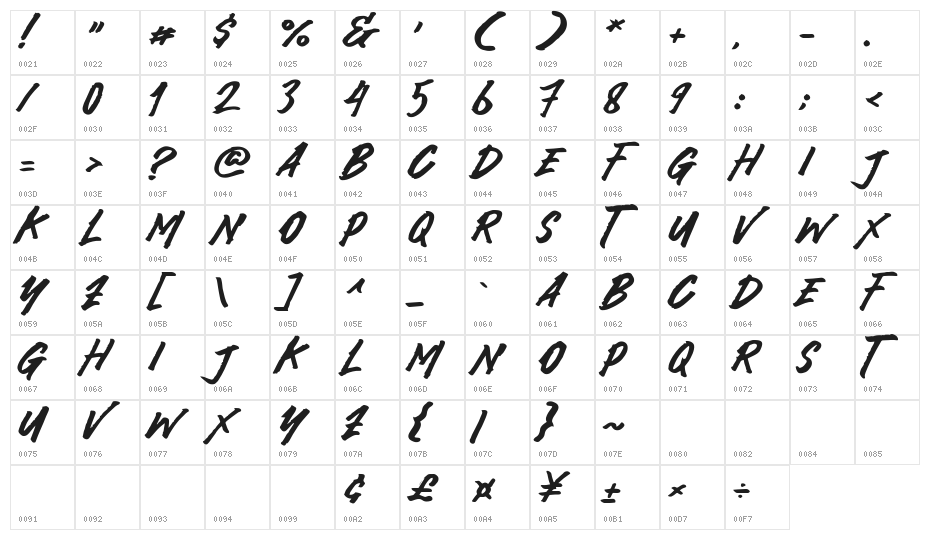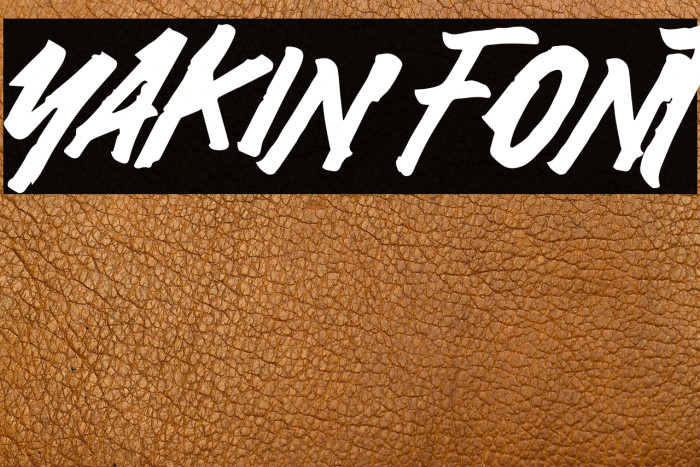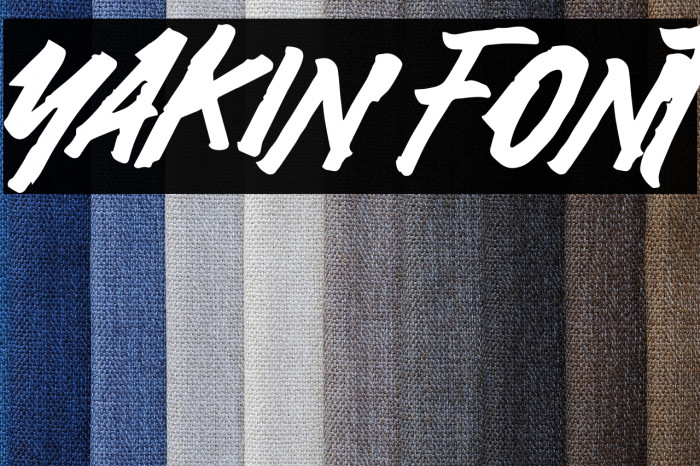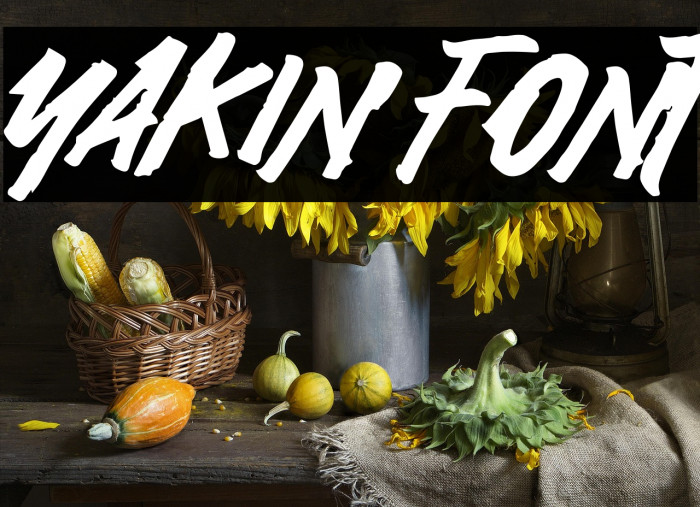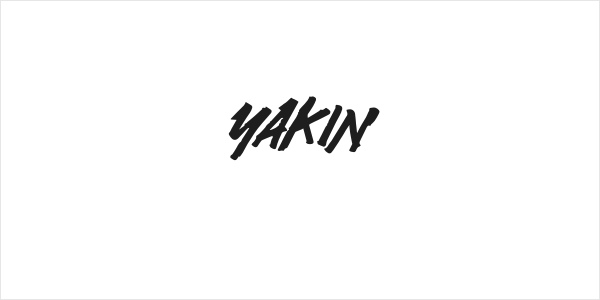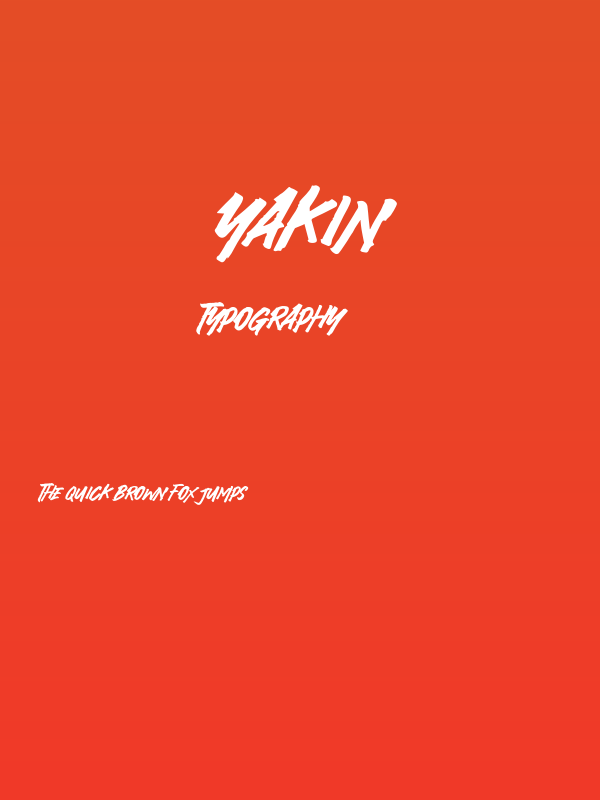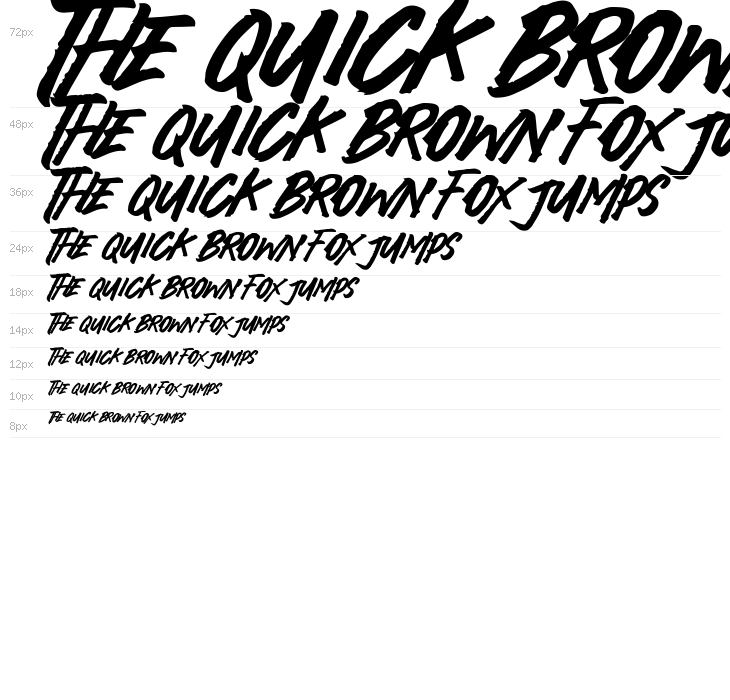
Yakin Font
Yakin Description
This font exudes a bold and dynamic handwritten style, characterized by its thick, expressive strokes and energetic flow. The letters are slightly slanted, giving a sense of movement and urgency. The uppercase and lowercase letters maintain a consistent style, with the uppercase being slightly larger and more pronounced. The numbers and special characters follow the same bold and energetic design, ensuring uniformity across all glyphs. The overall appearance is modern and edgy, making it suitable for projects that require a strong visual impact.
| Proposed Projects | Ideal for branding, poster design, album covers, and any project needing a bold, artistic touch. |